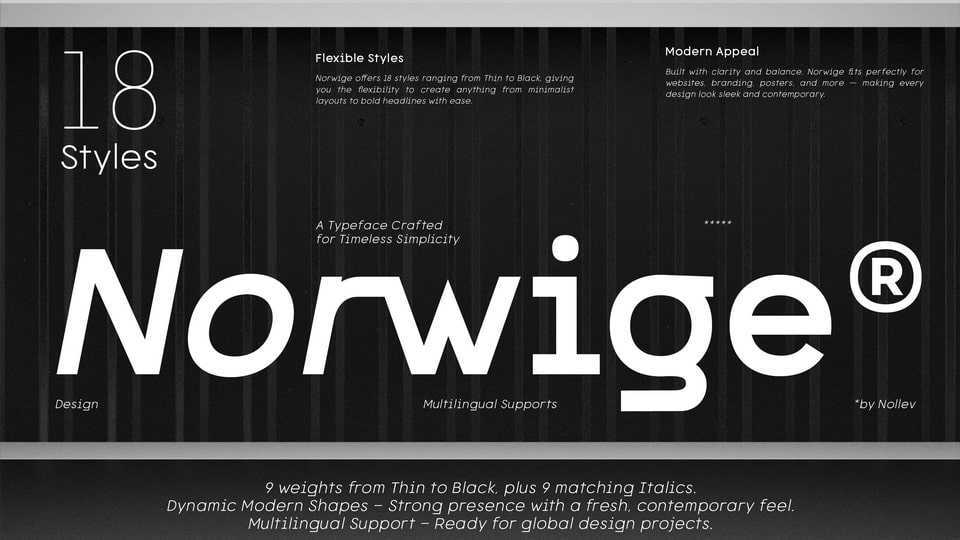
Download Norwige font, a modern dynamic sans-serif typeface designed with clean geometry and lively energy. With 18 versatile styles, plus matching Italics — Norwige is perfect for bold branding, editorial layouts, and digital experiences.
Designer: Akhmad Hidayat